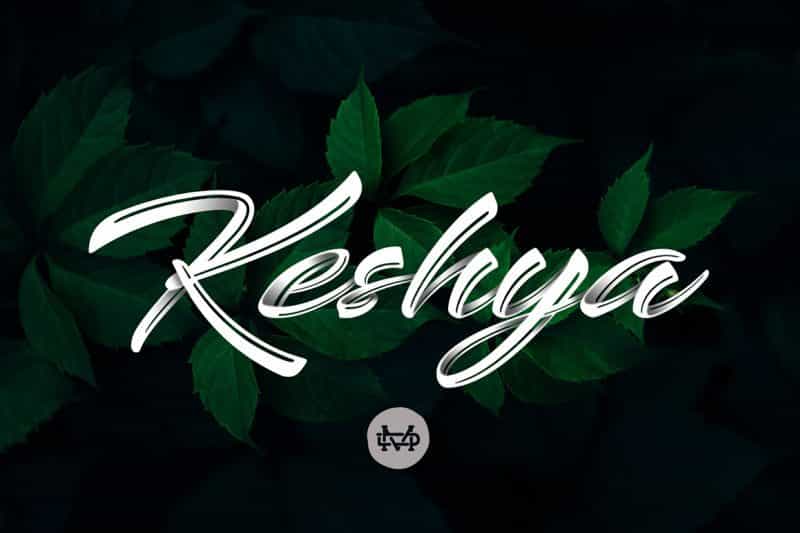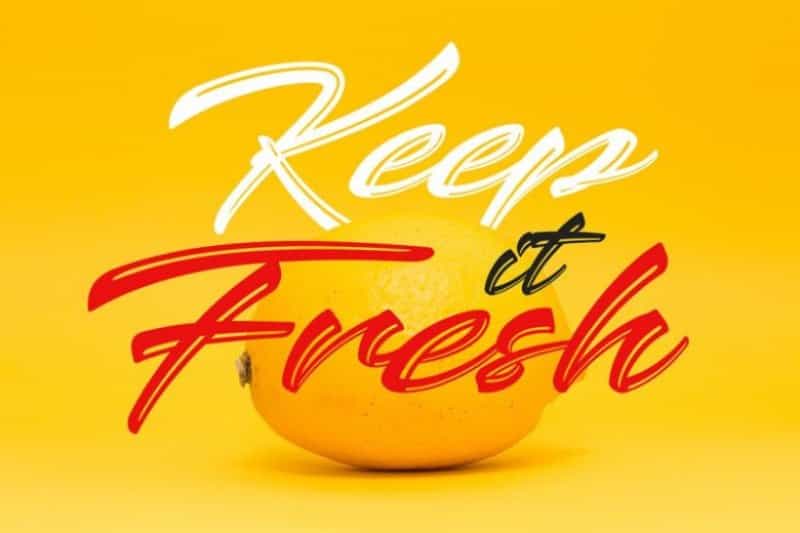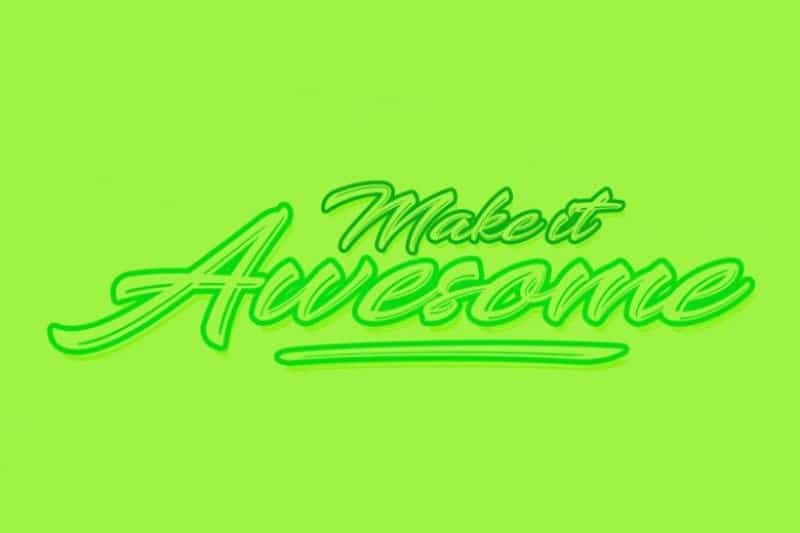
Discover Keshya Brush Font, part of the Brush Handwritten collection—a versatile and unique font perfect for adding a personal touch to your projects. Download it for free and enjoy crafting designs with style, from invitations to social media posts. This font is available exclusively for personal use, giving you the freedom to create without limits. Unlock your creativity with Keshya Brush Font today!